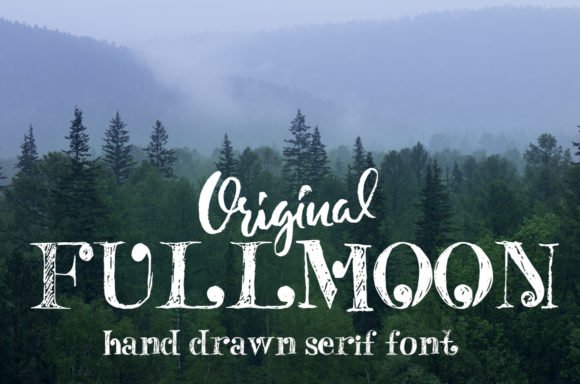
Introduction to Fulmoon Font
Make your designs stand out with Fulmoon, a stylish and unique serif font.
It will look stunning on posters, thank you cards, quotes, greeting cards, logos, business cards and every other design which needs a creative touch .
Why Choose Fulmoon Font?
Fulmoon Font offers exceptional quality and versatility, making it a valuable addition to your design toolkit. Whether you’re creating for personal projects or commercial use, Fulmoon Font delivers professional results.